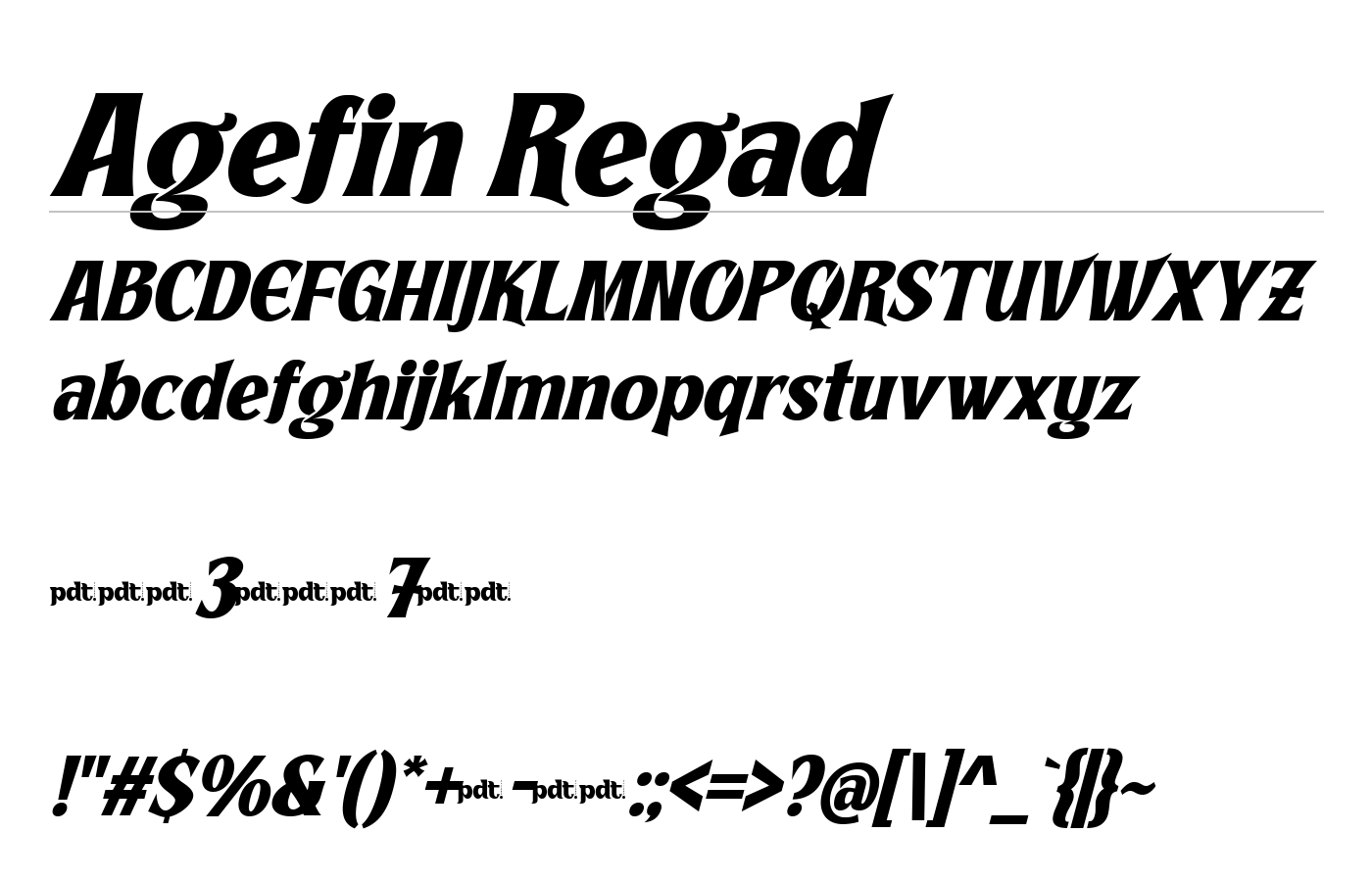
Agefin Regad trial is a bold, serif typeface with a distinctive italic slant and sharp, angular serifs that give it a dynamic, assertive personality. Its high contrast strokes and unique letterforms, such as the double-story 'g' and stylized 'R' leg, make it ideal for attention-grabbing headlines and branding that seeks to convey confidence and sophistication. This font works well in editorial design, posters, and luxury branding where a strong, elegant impact is desired.
Agefin Regad trial Font
About Agefin Regad trial Font